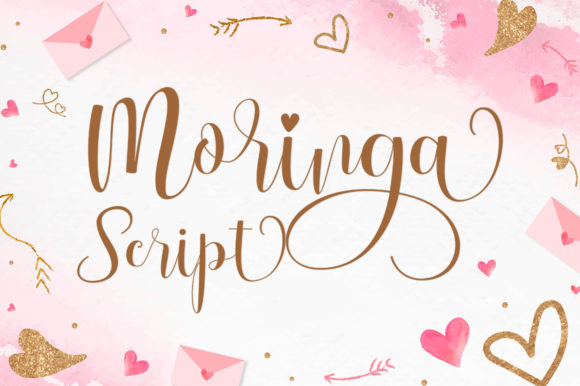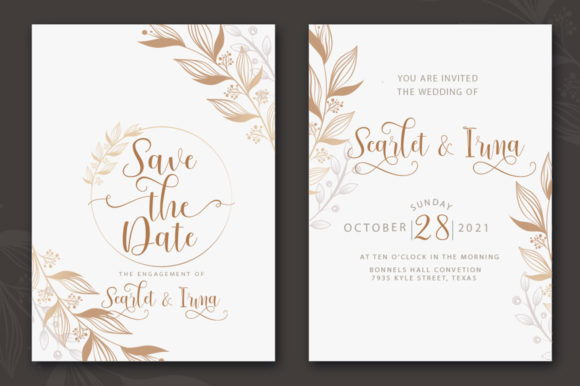
About Moringa Script Font
Moringa Script is a fabulous handwritten font. This versatile script font has a wide spectrum of applications ranging from greeting cards to headlines and is guaranteed to add a romantic feel to your next project.